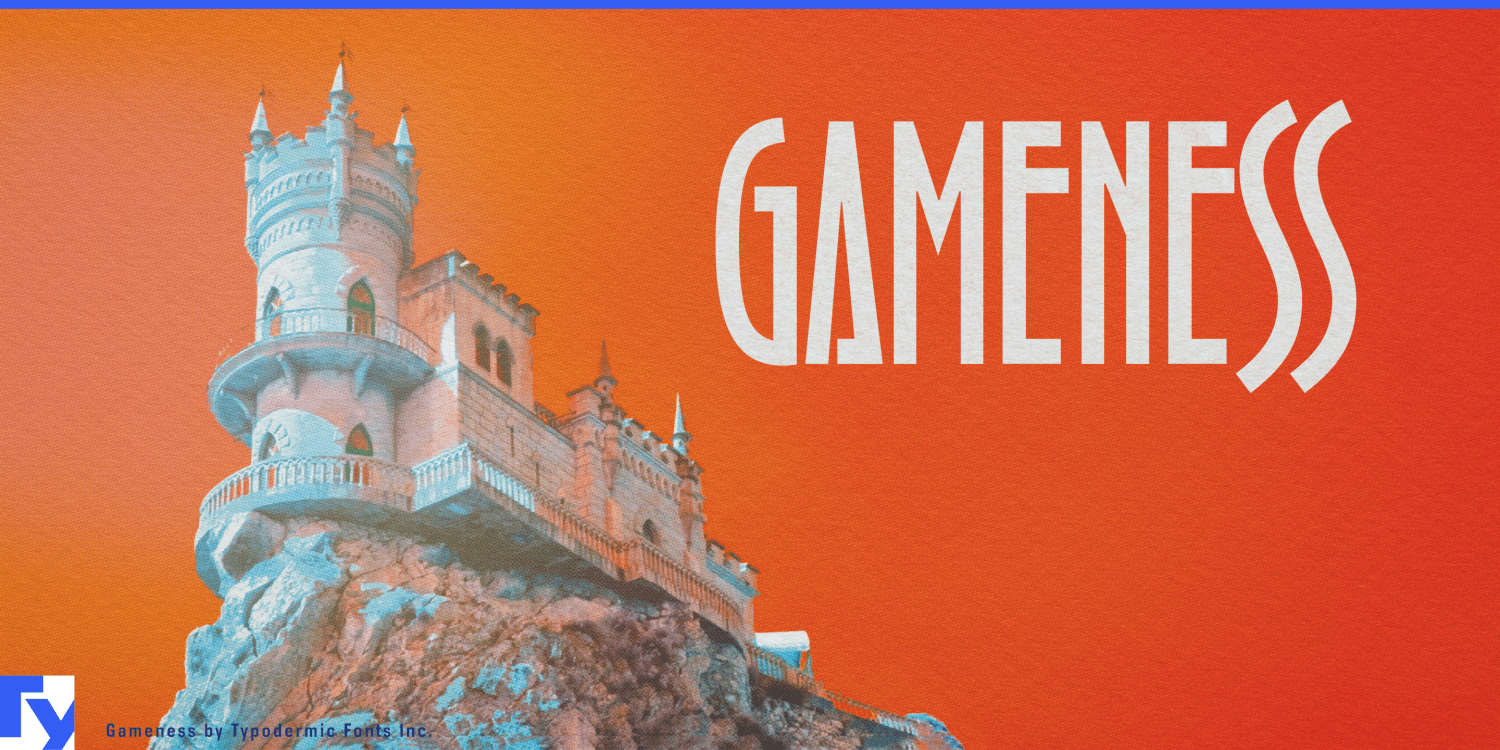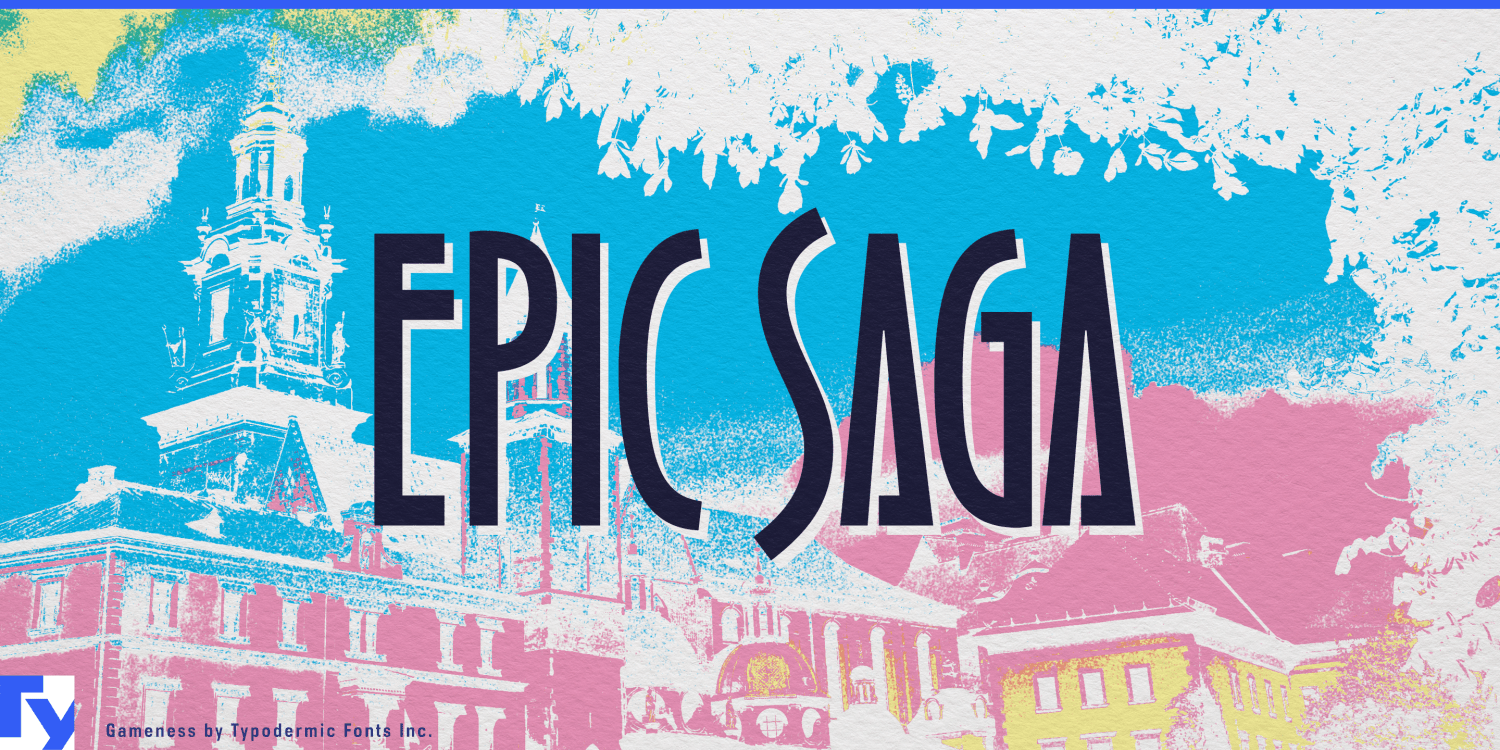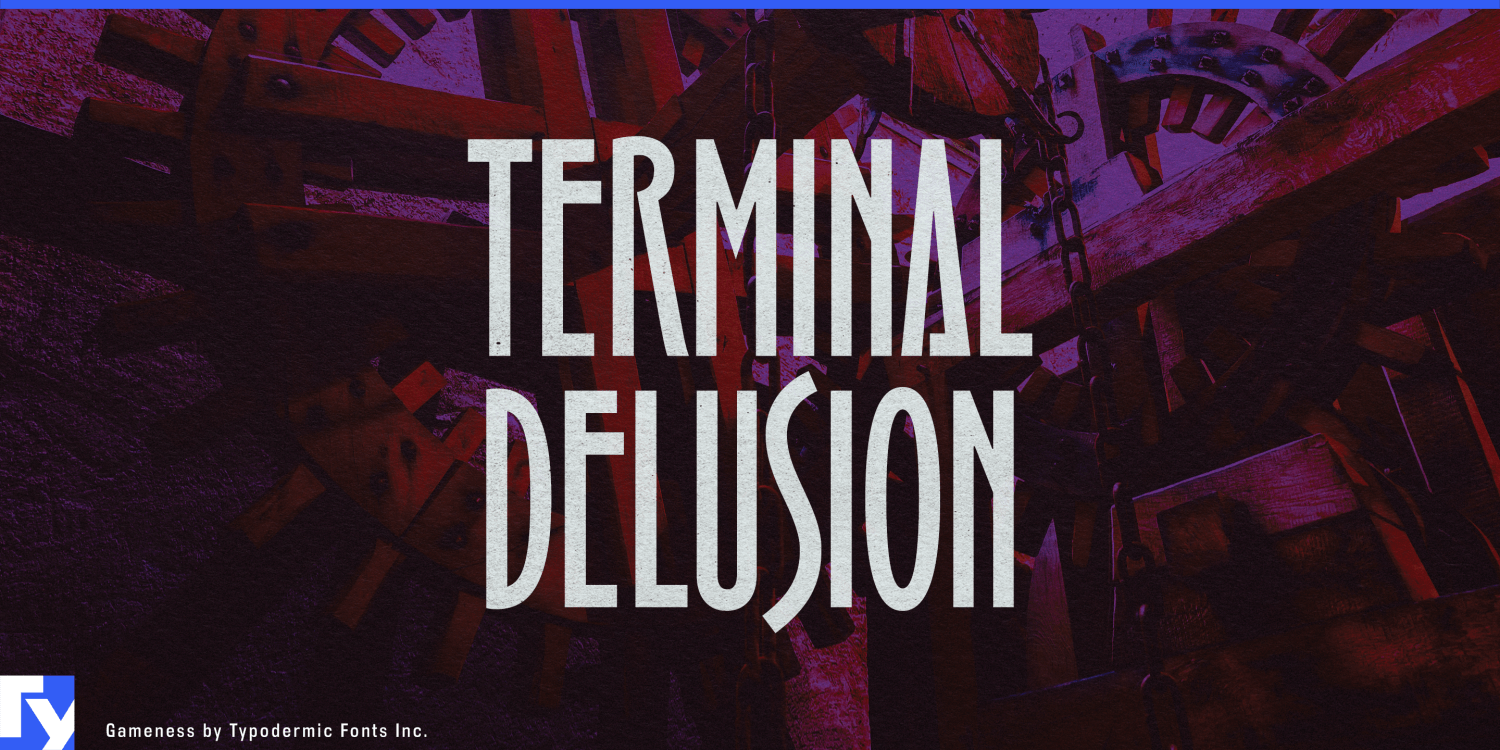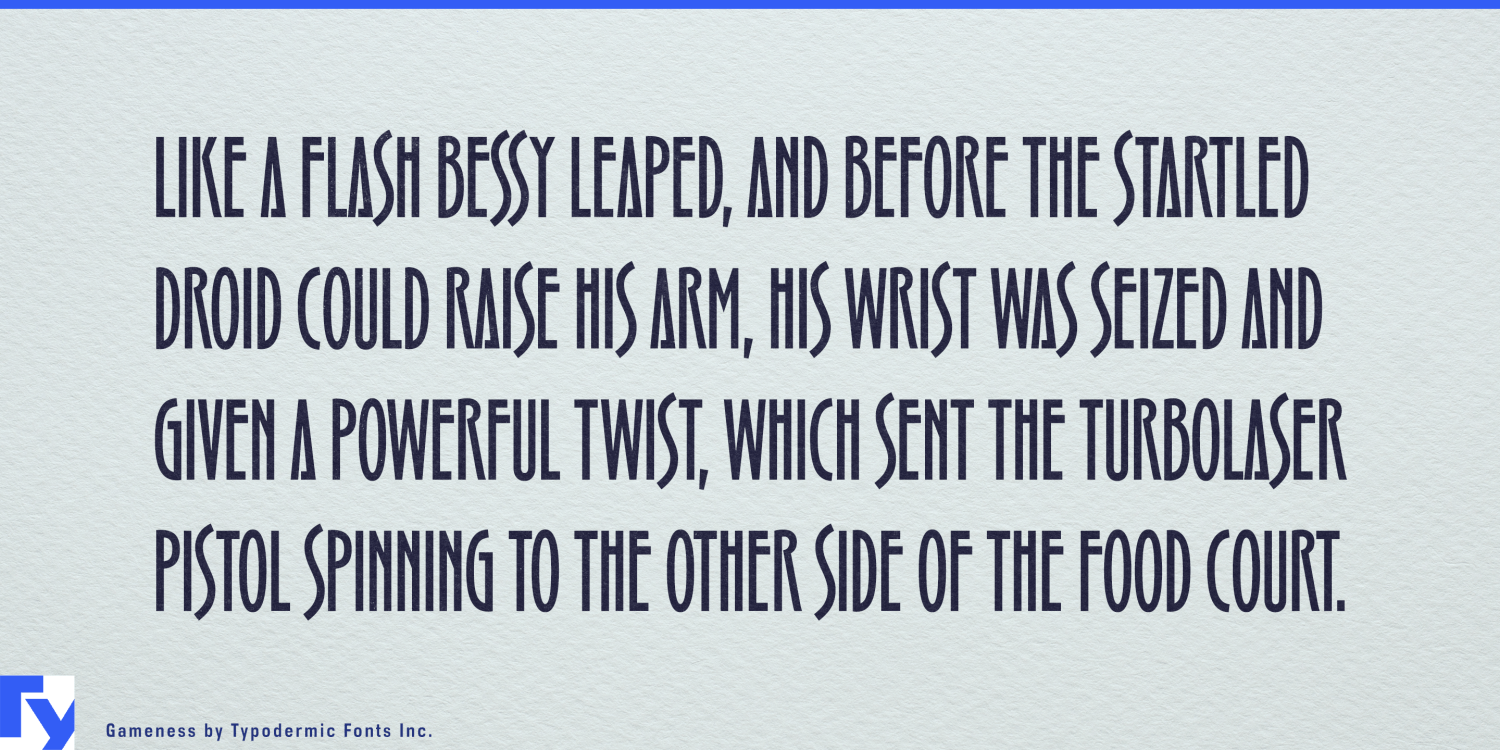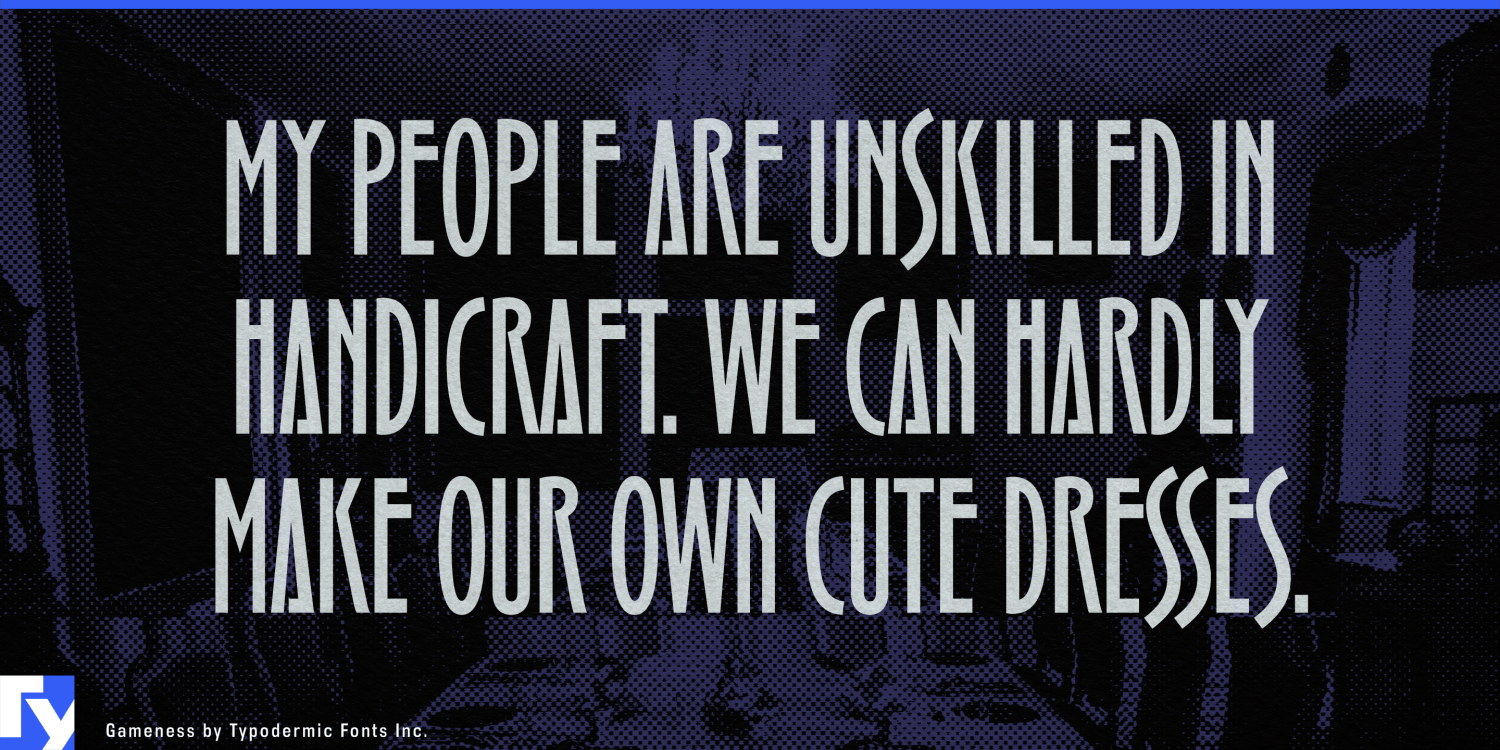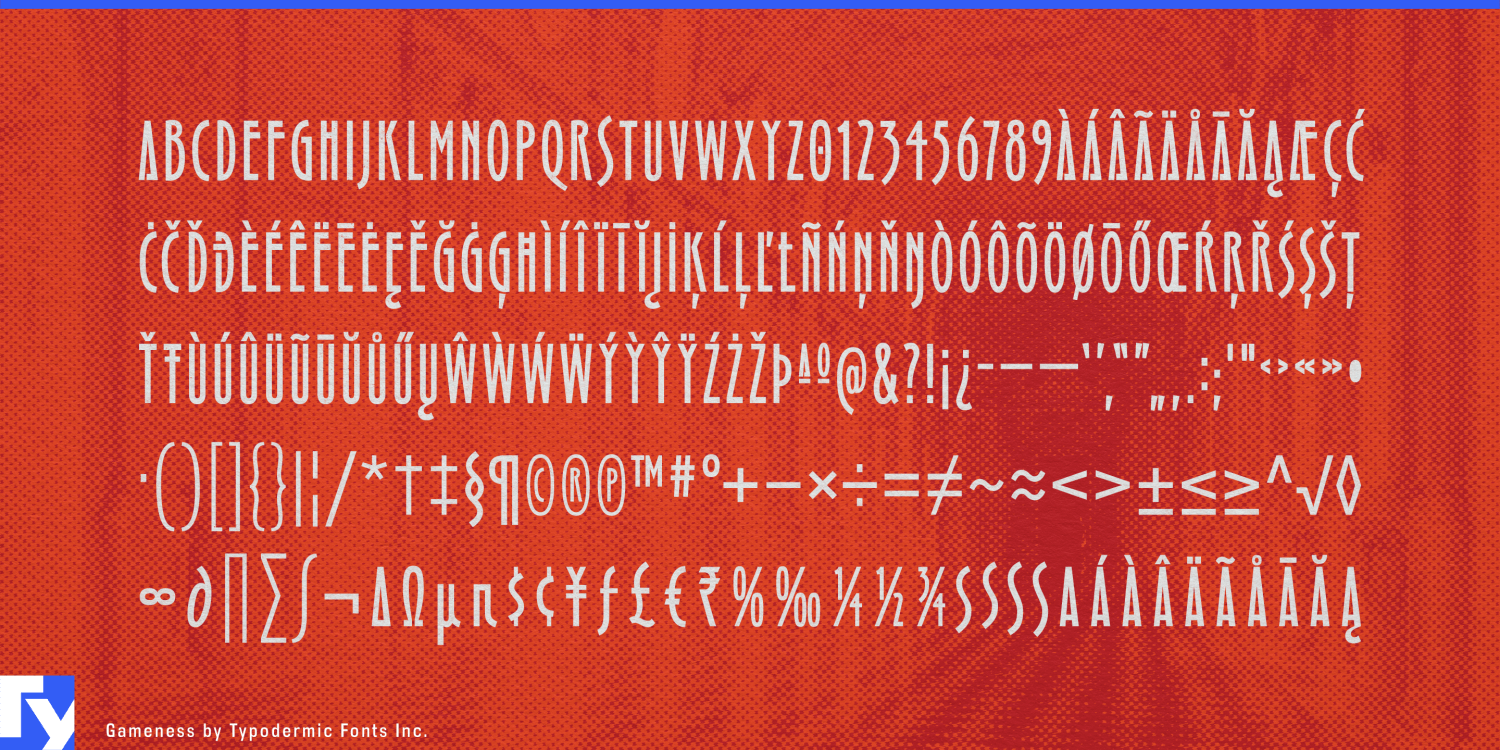
Gameness
Font Family by Typodermic
Introducing Gameness, a typeface that marries ’90s gaming nostalgia with sleek, modern sophistication. This font doesn’t just nod to the past—it struts confidently into the present, flaunting a slim elegance that sets it apart from the pixelated pack.
Inspired by the iconic Game Boy box art for Final Fantasy Adventure, Gameness captures the essence of retro gaming culture while refining it for contemporary tastes. Its narrow, elongated letterforms exude a quiet confidence, standing tall and proud like the heroes of classic RPGs. Gameness’ true power lies in its svelte silhouette. Each character is a masterclass in streamlined design, with vertical strokes that seem to stretch towards the sky, creating a sense of aspiration and forward momentum. This slender profile allows Gameness to command attention without overwhelming the space, making it the perfect choice for headlines, logos, and branding that demand both presence and poise.
For those who appreciate the finer details, Gameness offers an alternate barred “A”, adding a subtle dash of variety to your typographic arsenal. In OpenType-enabled applications, the “S” shape adapts to its neighbors, ensuring a smooth, harmonious flow that echoes the fluid gameplay of the era that inspired it. But Gameness isn’t just about looks—it’s a linguistic polyglot, fluent in a vast array of Latin-based European writing systems. From Afaan Oromo to Zuni, this font ensures your message maintains its slim, elegant charm across cultural and linguistic boundaries.
It’s the perfect typeface for designs that aim to balance retro appeal with contemporary sophistication. Let Gameness be the voice of your most refined ideas, transforming ordinary text into a sleek, nostalgic experience that captivates and inspires. Because sometimes, the most powerful statements are made with the quietest confidence.